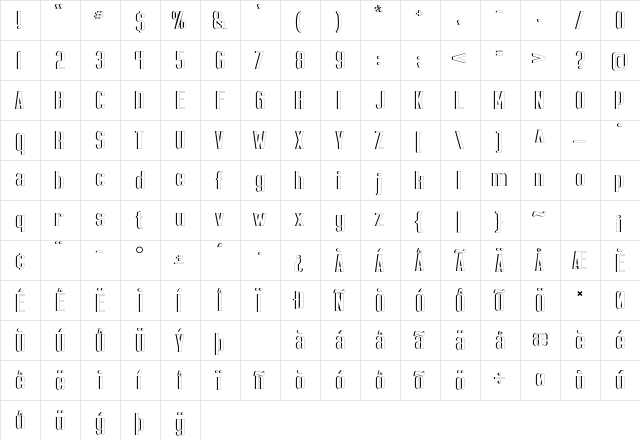
Capicola Sansish Open Regular
Design Context for Capicola Sansish Open Typeface
Capicola Sansish Open offers clean, dependable letterforms without strong stylistic allegiance, making it a practical choice for designers who need flexibility.